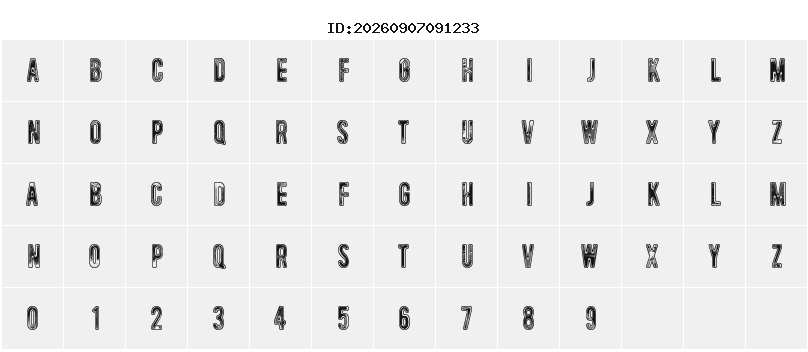
Universal Mind Preview
• Font Name: Universal Mind
• Full Font Name: Universal Mind
• Designer: junkohanhero
About Universal Mind.ttf
Universal Mind.ttf is a modern, elegant sans-serif font designed for ultimate readability and visual harmony. Perfect for branding, headlines, web design, and print materials.